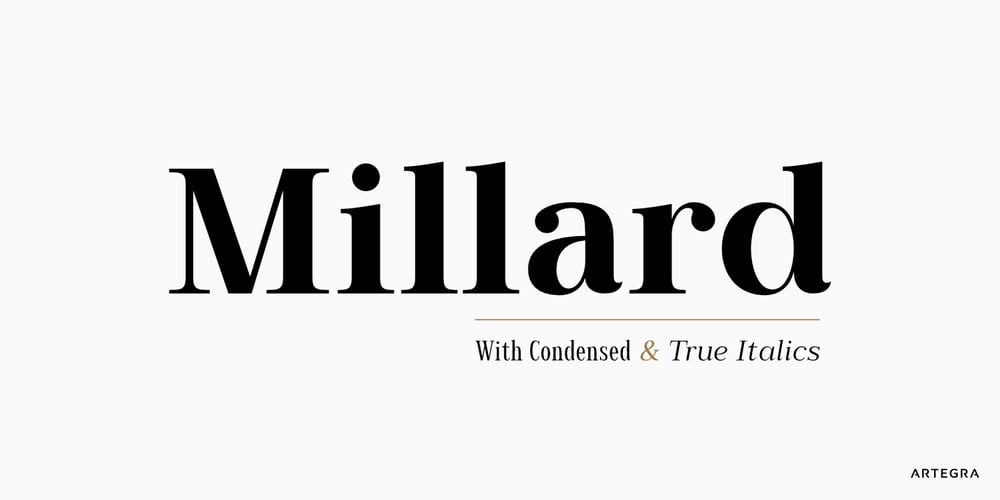
Millard
Millard font
Millard Font Family was designed by Ceyhun Birinci and published by Artegra. Millard contains 8 styles and family package options. When you need a classic serif typeface that is up to the modern standards, Millard comes to your rescue with its alluring beauty and legibility. You have a contemporary serif family that offers great variety with regular and bold weights in both normal and condensed widths, along with their true italics. Over 500 glyphs in each font offers you the language support you need for all the Latin languages.